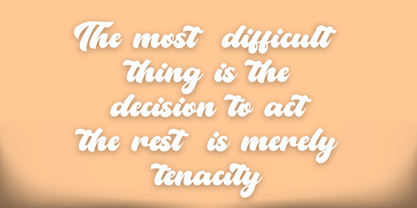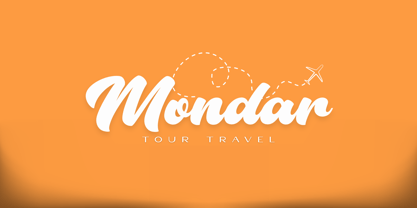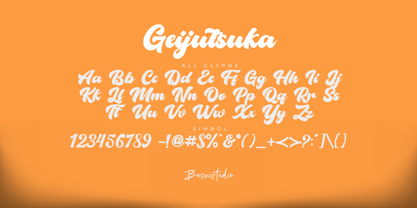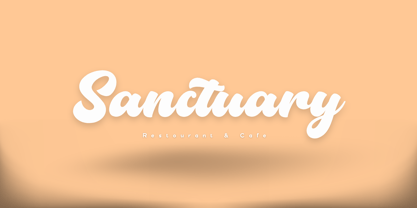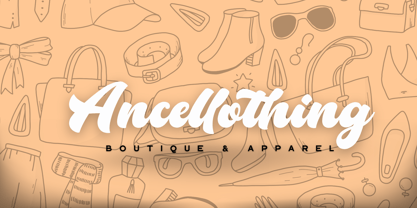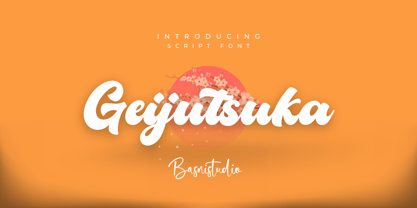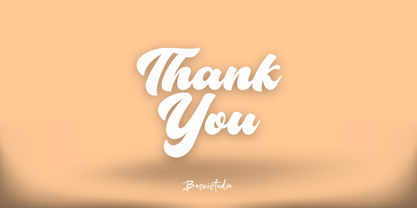
Geijutsuka
by Basnistudio
The Geijutsuka Font Family was designed by Bery Arisandi and published by Basnistudio. Geijutsuka contains 1 styles. More about this family
✨ Introducing Geijutsuka Script Font
Make your message unforgettable.
Geijutsuka isn’t just a font — it’s attitude in every curve, confidence in every letter.
🖋️ Designed for impact
🎨 Perfect for posters, headlines, branding & more
💥 Sharp, stylish, and unapologetically bold
Your words deserve to be seen.
Say it loud. Say it with Geijutsuka.
• Uppercase & lowercase letters
• Ligatures
• Numbers & punctuation